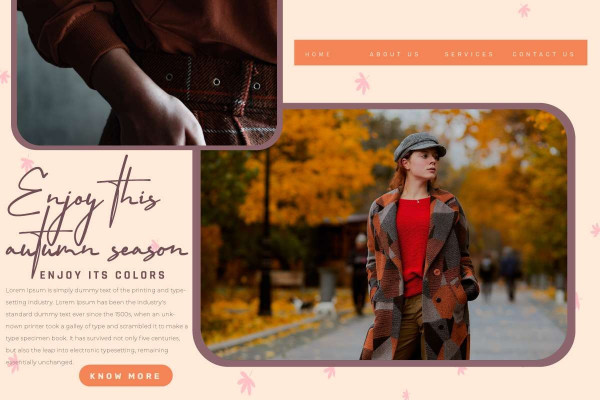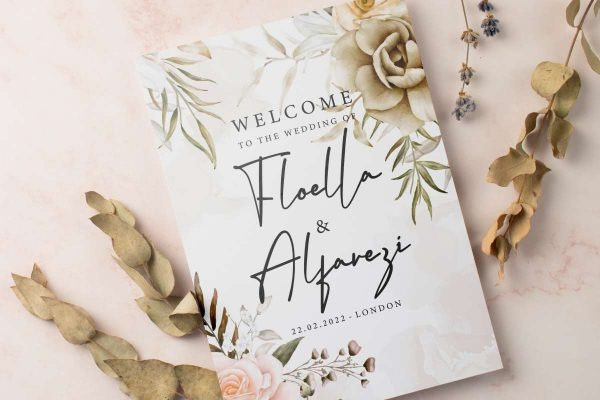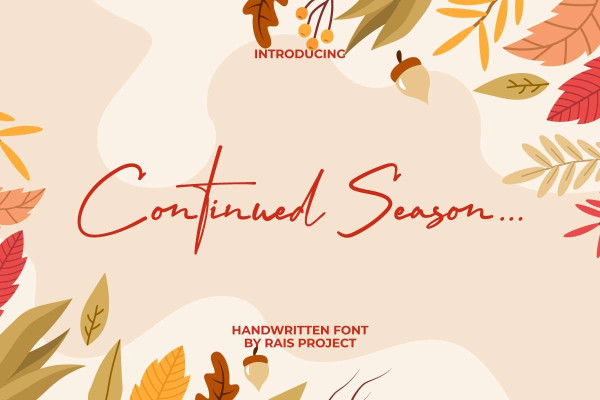
Continued Season Font
Continued Season Font is a beautiful handwritten font with signature style. This font has sleek and thin lines that wave beautifully and still easy to read. This font has a modern appearance making it suitable for many industries, such as beauty product, boutique, event or wedding organizer, fashion, florist, homeware, jewelry, photography, printing, publishing, writer, and more!
Continued Season Font includes a full set of Uppercase and Lowercase Letters, Numerals, and large range of punctuation. This font also contain Ligature characters that will beautify your projects with its exclusive look, such as brand logo, business card, catalog, invitation, label, menu, poster, product packaging, quote, title, website, etc.